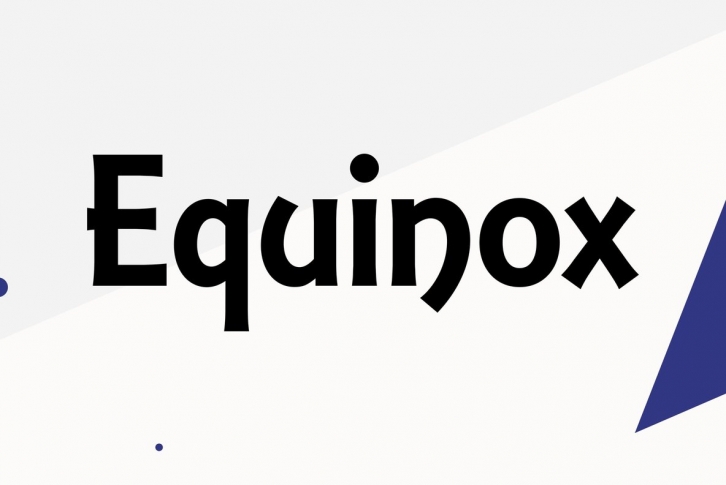
This casual, light-hearted typeface is extremely versatile and includes an array of alternative characters. Tight letter and word spacing is recommended to achieve maximum visual impact. Created by British designer Vince Whitlock in the Type Studio.